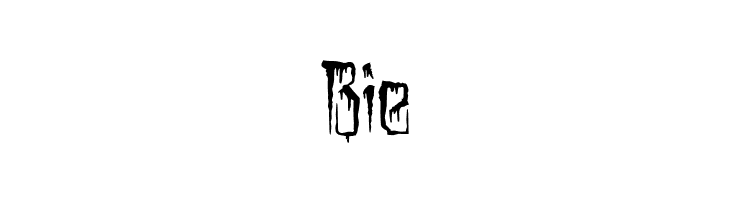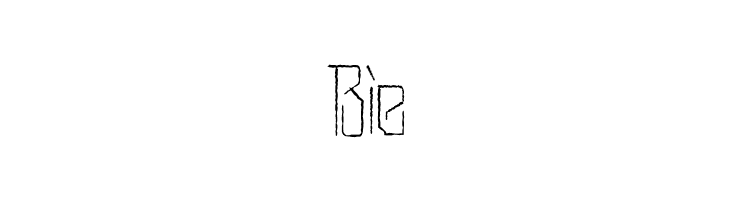
A bold, rugged font with a distressed, brush-stroke appearance.
A bold, dripping decorative font with high contrast and sharp edges.
A rough, edgy font with sharp, jagged edges and a distressed texture.
A rugged, textured font with a hand-drawn, edgy appearance.
A bold, angular font with a futuristic and edgy design.
A rough, hand-drawn font with sharp angles and a gritty, urban aesthetic.
A rugged, hand-drawn font with sharp, angular strokes and a graffiti-like appearance.
A bold, rough, hand-drawn font with a unique, edgy style.
A bold, angular font with a modern, geometric style.
A bold, geometric font with a strong, industrial aesthetic.